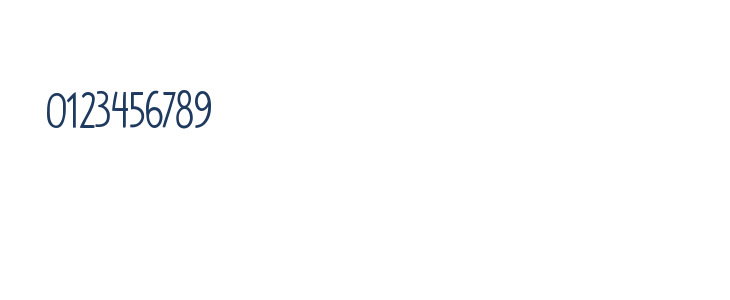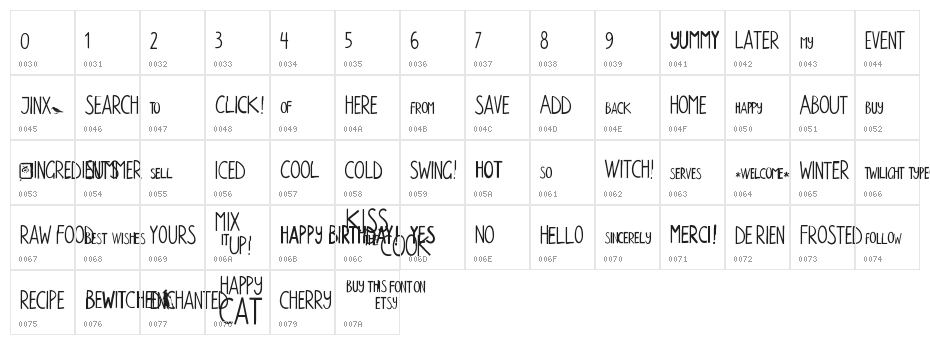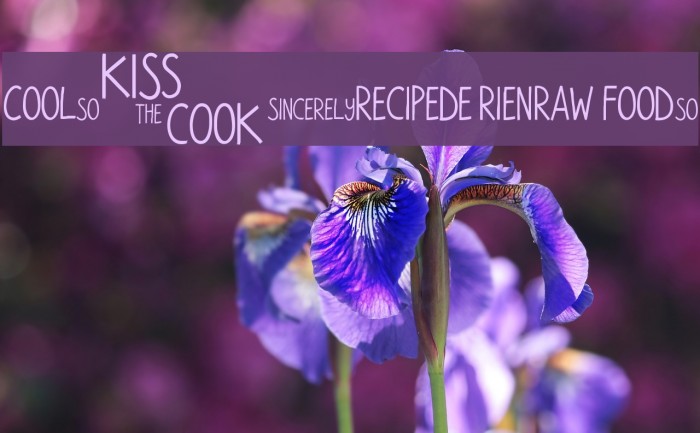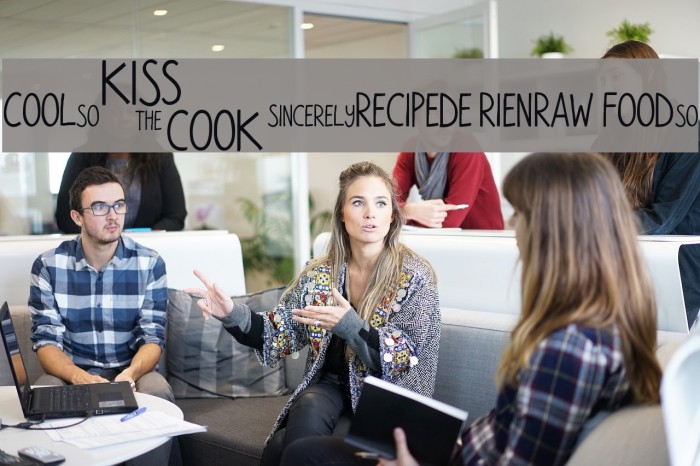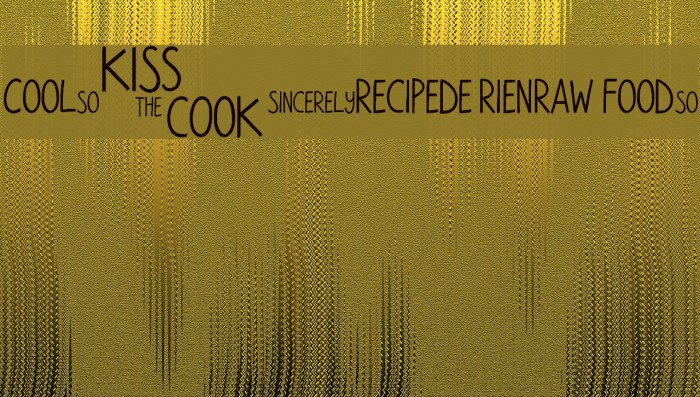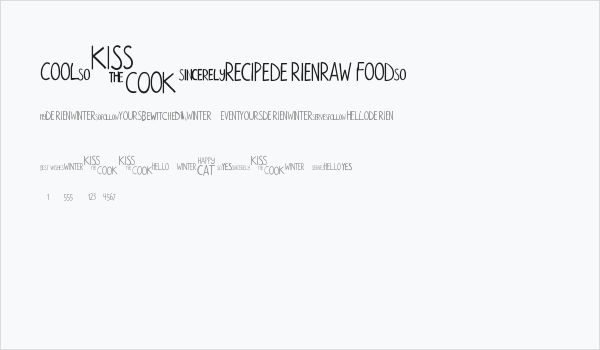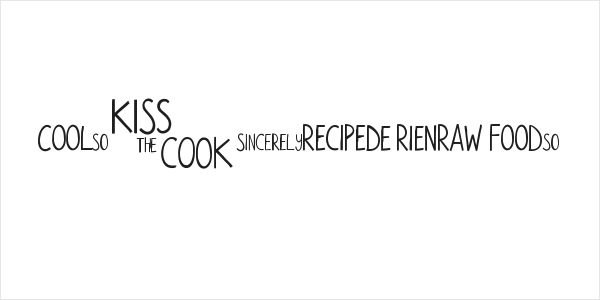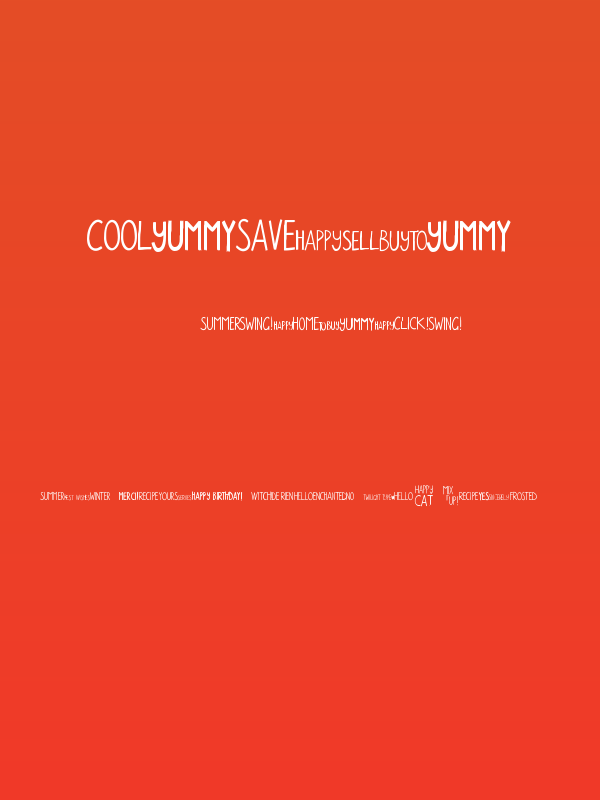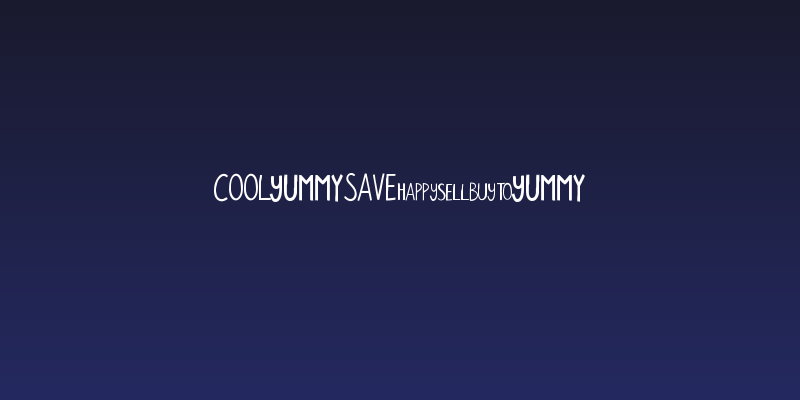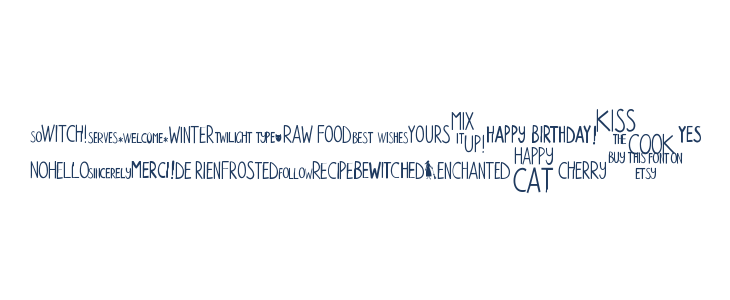
Walpurga Font
Walpurga Description
This font features a whimsical and playful design with a unique, hand-drawn aesthetic. The characters are elongated and slightly irregular, giving them a quirky and artistic feel. The uppercase letters are tall and slender, while the lowercase letters maintain a consistent style, adding to the font's charm. The numbers and special characters follow the same playful design, making the font versatile for creative projects. The overall look is both modern and vintage, suitable for adding a touch of personality to any design.
| Width | Condensed |
| Overall Style | Whimsical, Artistic |
| Use Case | Headlines, Logos, Creative projects |
| Proposed Projects | Ideal for creative projects such as greeting cards, invitations, children's books, and playful branding. |